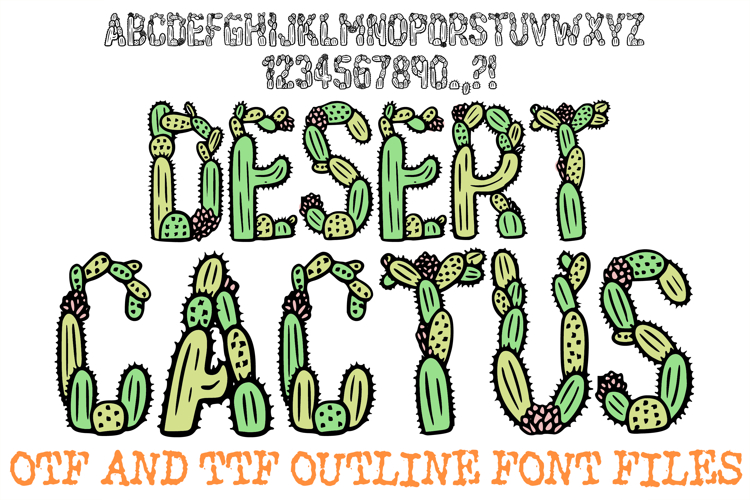
Spiky Font
A spiky font grabs attention fast, and the range here is wide: Spiky Dinosaur and Roarr dino party lettering for kids, Supreme Spike for sports and futuristic logos, the Biker Spike bitmap face and rough display styles like Flicker and Rampage. Most come as OTF, and many as TTF too.
Choosing a font with spikes for posters, team logos and dino parties
Below the grid, sections split the look into jagged, dagger, pointed and cactus styles. A jagged font with rough, brushed edges fits Halloween flyers, horror movie nights and heavy metal merch, while a dagger font leans gothic for tattoo flash or a band logo. Cactus lettering brings the spines to western and desert themes.
For kids, the dinosaur alphabets give birthday invitations and party banners some teeth. Supreme Spike works on jerseys and esports logos, the bitmap Biker Spike suits retro gaming graphics, and the Craft Beer Typeface fits labels and bar signs. After downloading, install the OTF on your computer as shown in How to Install Fonts on a Windows PC or Mac. For neighboring styles, open Heavy Metal Fonts, Cyber Font or Mystic Font. Join Font Bundles and every spiky typeface on this page is included in your membership, while the Unlimited plan brings unlimited downloads and a Premium & POD commercial license.